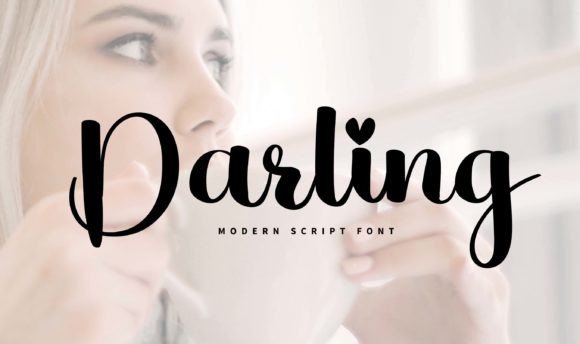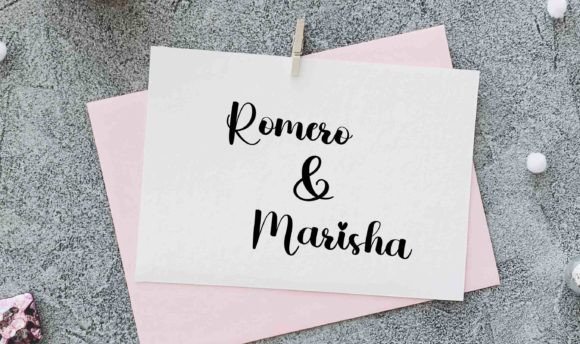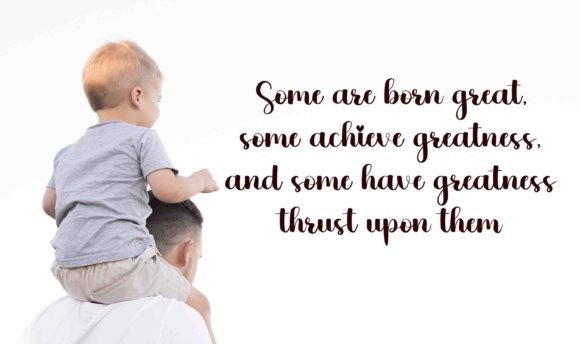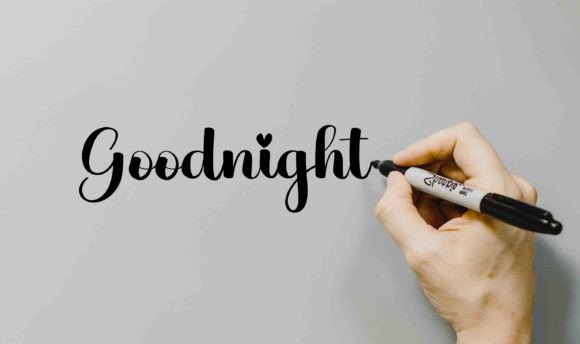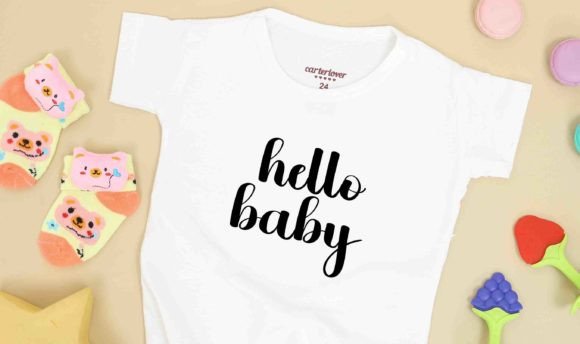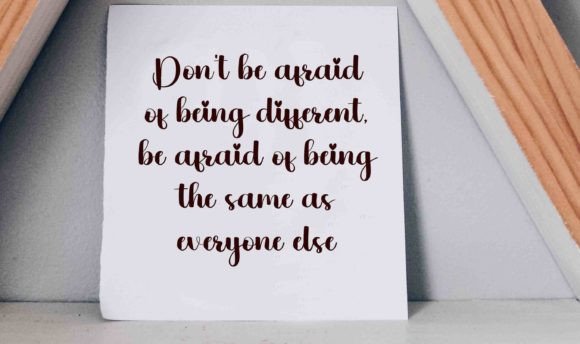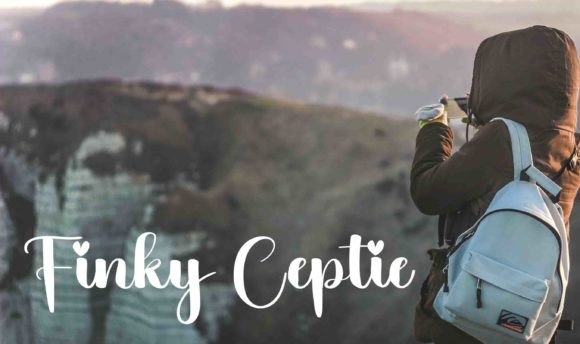
The Perfect Script for Your Next Design Project
As a designer, there’s nothing quite like the thrill of discovering a new font that perfectly captures the essence of your creative vision. For me, it’s like stumbling upon a hidden treasure trove of inspiration, and I’m excited to share with you one such gem – the Darling Font.
With its charming, handwritten style and unique character flair, the Darling Font is the perfect addition to any design project that requires a touch of elegance and romance. Whether you’re crafting wedding invitations, designing logos, or creating quotes, this font is sure to add a special something that sets your work apart from the rest. For designers, the Darling Font is a valuable tool that offers endless possibilities for creative expression.
Darling Font Key Features
- Unique Characteristics: This script font features elegant, flowing connections between letters, ideal for creative and artistic projects.
Darling Font Review
I’ve had the chance to work with the Darling Font, and overall, I’m impressed with its charm and versatility. ✨ One of the standout features is its elegant, cursive script, which is perfect for titles, headings, and even body text. It’s also highly legible, making it an excellent choice for digital and print materials.
Another advantage of the Darling Font is its wide range of languages supported. ✨ It’s great to see a font that caters to diverse audiences and accommodates different languages with ease. Additionally, the font’s OpenType features allow for more nuanced typography and styling options.
While the Darling Font excels in many areas, there are some limitations to consider. ⚠️ One of the main concerns is its relatively small character set, which might limit its usability for more complex projects or languages. Additionally, the font’s cursive script can be overwhelming in large blocks of text, making it better suited for titles and headings.
Here are some specific areas where the Darling Font falls short:
- Character set limitations
- Potential for overwhelming text in large blocks
- Some characters might not render perfectly across different platforms
Despite its limitations, the Darling Font is a beautiful and versatile typeface that’s perfect for a variety of projects. Its elegant script and wide language support make it an excellent choice for designers and typographers looking to add a touch of sophistication to their work. With some careful planning and consideration, the Darling Font can be a valuable addition to any design project.
The Darling Font is ideal for:
- Blog posts and articles
- Marketing materials and social media graphics
- Logo design and branding